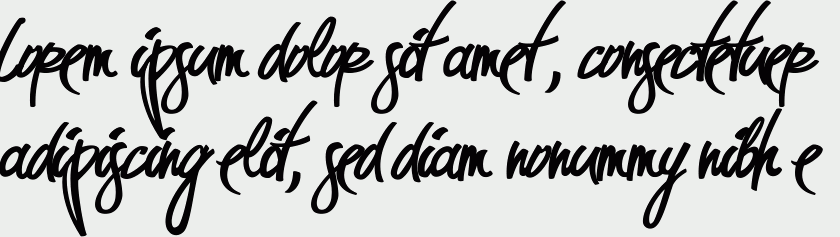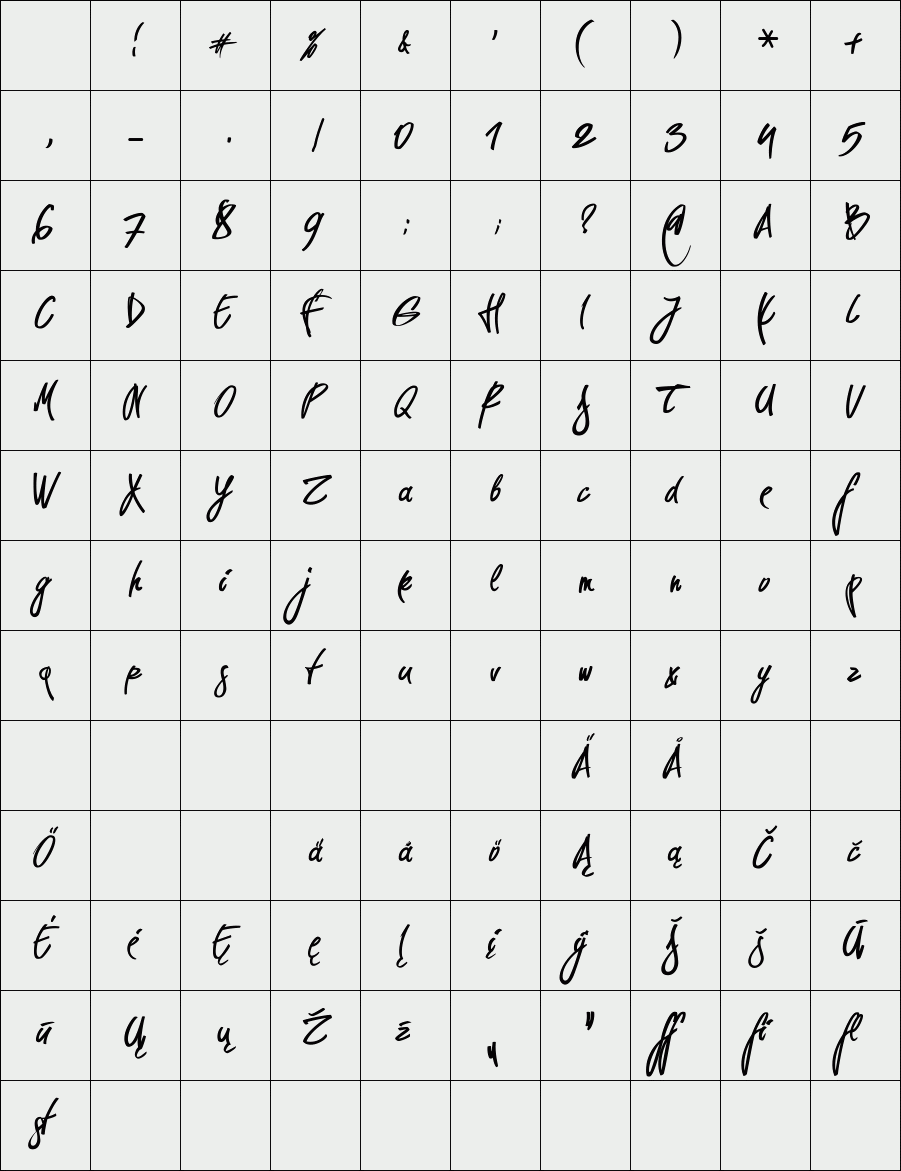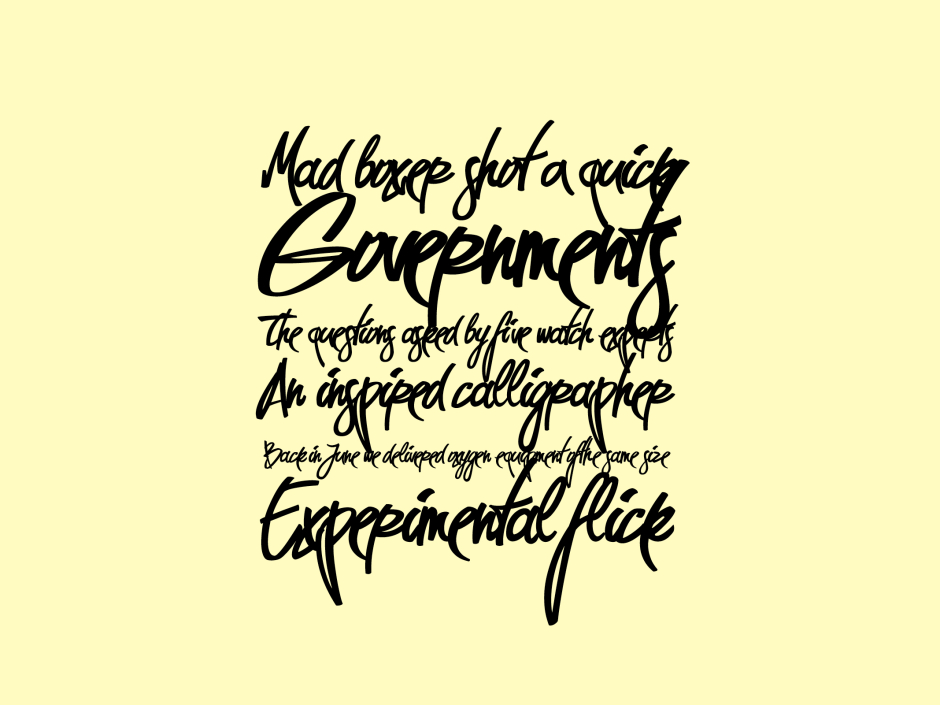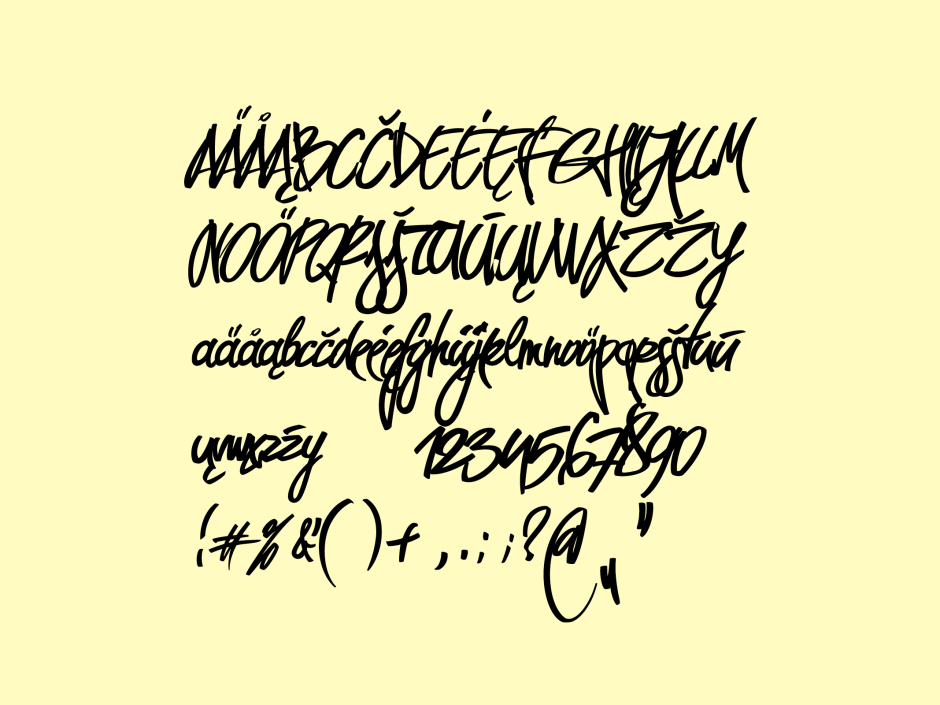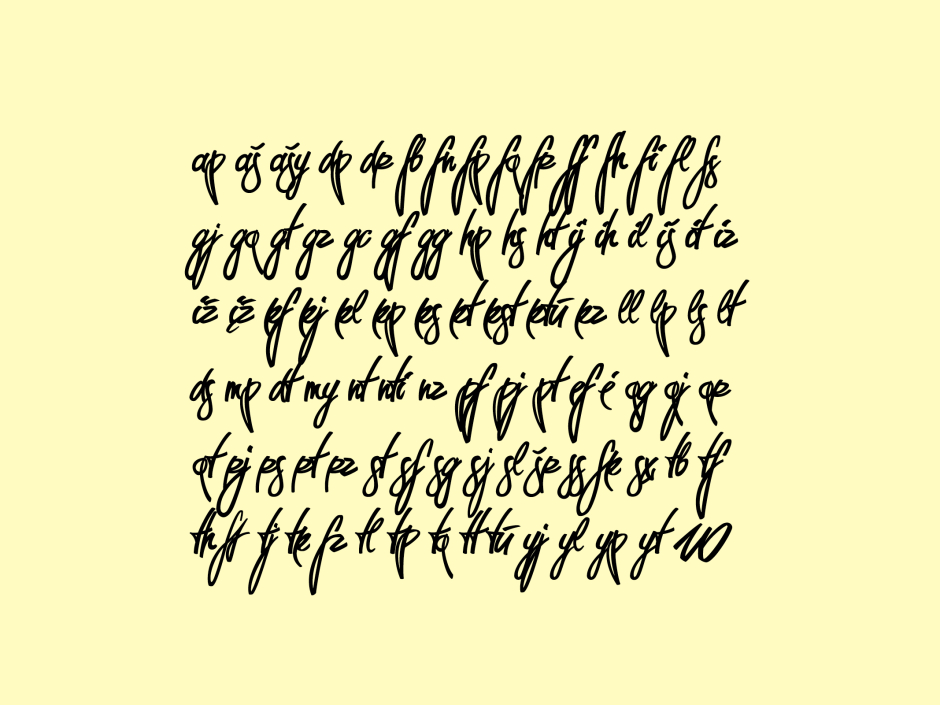
Pirmokas script
Typeface Pirmokas is one of my first works made in digital version. It all began when I started my FontLab course. Pirmokas was made as school project to improve FontLab skills. Main point of making it was to have the typeface which would be universal and fitable with my style of works or projects. It took half a year, one box of A3 paper and aproximately 10 stabilo layout markers, to design it and digitalyze. Originally it was written on paper with 10mm marker, each letter is taken from entire word, trying to write and desing it as natural as possible. Entire font contains 230 glyphs, 130 of which are ligatures and it has unusual kerning solu- tions. Pirmokas was designed in 2009 spring.